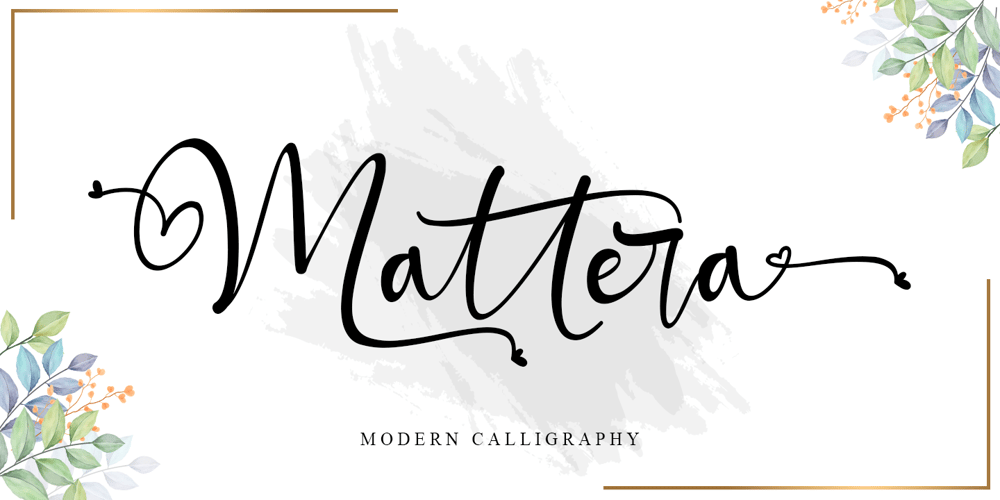
Mattera
Mattera font
Mattera Font Family was designed by Thomas Aradea and published by Letterara. Mattera contains 2 styles and family package options. Mattera is a minimalist script font designed with an incredibly modern and beautiful feel. This font is PUA encoded which means you can access all of the glyphs and swashes with ease! It features a varying baseline, smooth lines, gorgeous glyphs, and stunning alternates.Mattera will look outstanding in any context, whether it’s being used on busy backgrounds or as a standalone headline!